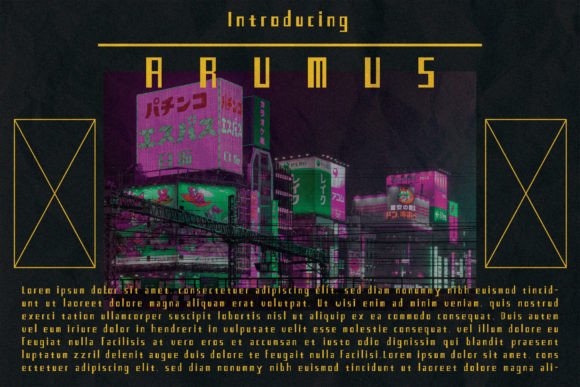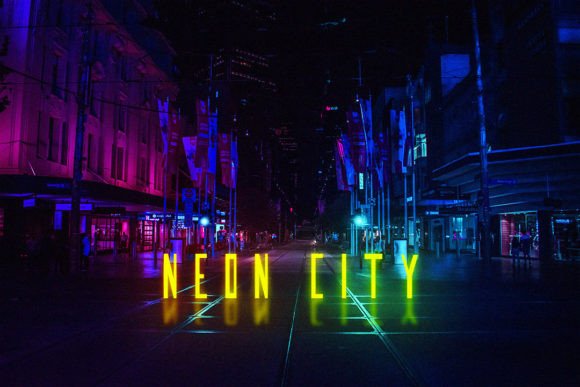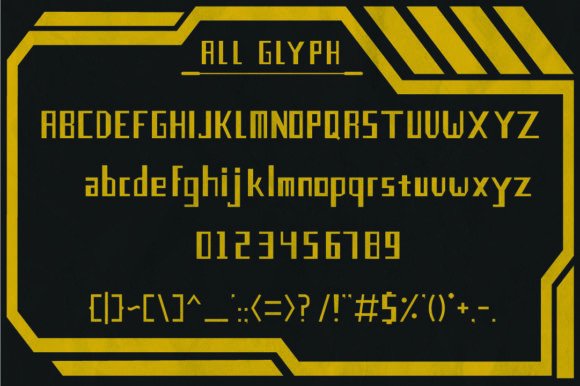
The Missing Piece in Your Design Puzzle
You’ve spent hours pouring over design concepts, tweaking every detail, and perfecting the color palette. And then, it happens – the moment when everything comes together, and your creation jumps off the page. But have you ever felt like something was missing, that your design needed a spark to elevate it to the next level?
Enter the Arumus Font, a modern and futuristic display font designed to breathe life into your creations. With its sleek lines and dynamic feel, the Arumus Font has the potential to be the missing piece in your design puzzle. Whether you’re working on a futuristic sci-fi project or a sleek tech startup, this font is sure to add a touch of sophistication and style to your work.
Key Features of Arumus Font
- Character Count: The font family includes a vast array of characters, including uppercase and lowercase letters, numerals, punctuation marks, and special characters, making it ideal for various design projects.
- Font Size: The font family includes multiple weights and styles, ranging from Extra Light to Extra Bold, allowing designers to achieve a wide range of visual effects and emphasis.
- Unique Characteristics: Arumus Font features a unique blend of modern and classic elements, with a distinctive flair that sets it apart from other sans-serif fonts.
Arumus Font Review
Overall, I was quite impressed with Arumus Font, especially its unique style and versatility. Here are some of its standout features:
- ✨ Highly legible and readable in various font sizes and styles.
- ✨ Suitable for a wide range of applications, from body text to headings and titles.
- ✨ Great for creating a modern and sophisticated look in your designs.
- ✨ Supports a wide range of languages, making it a great choice for multilingual designs.
However, I did encounter some limitations that might be worth considering:
- ⚠️ Not ideal for use in very small font sizes, as the letters can become blurry and difficult to read.
- ⚠️ May require some adjustments to line spacing to ensure optimal readability.
- ⚠️ Not as versatile as some other fonts when it comes to customizing its look and feel.
Overall, I would recommend Arumus Font for designers who want a modern and sophisticated look in their designs. While it may have some limitations, its unique style and versatility make it a great choice for a wide range of applications.
Alternative Fonts to Arumus Font
Montserrat is a sans-serif font designed by Julieta Ulanovsky. It’s ideal for use in digital media, particularly on screens, due to its clean and legible design. Montserrat is a great alternative to Arumus Font when you need a modern and sleek look.
Comparison: Montserrat has a more geometric and futuristic feel compared to Arumus Font’s more classic and elegant look.
Playfair Display is a luxurious and elegant serif font designed by Claus Eggers Sørensen. It’s perfect for use in high-end branding, magazines, and other publications where sophistication is key. Playfair Display is an alternative to Arumus Font when you need a touch of luxury and sophistication.